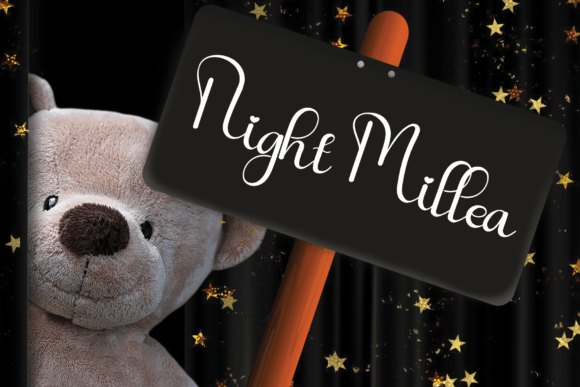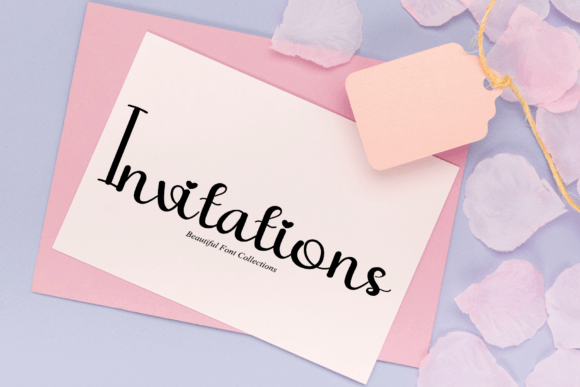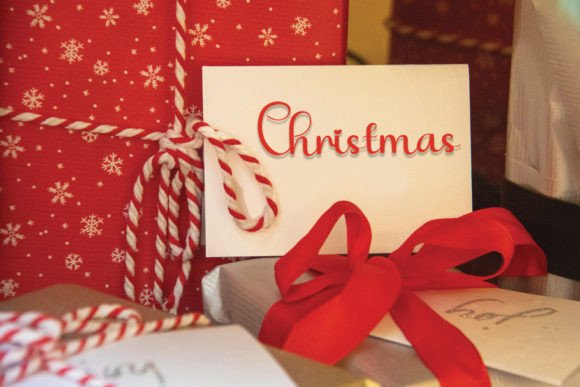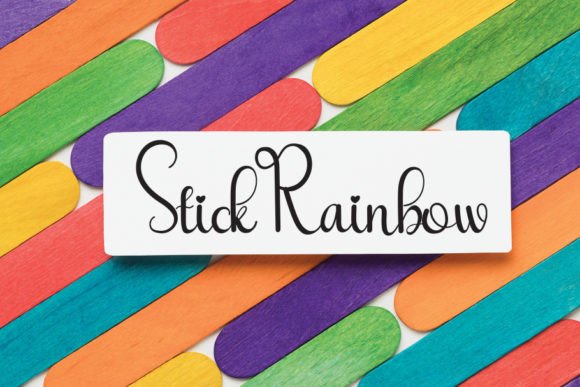
Chocolate Font
Chocolate Handwritten Font – Fun and Friendly Typeface
The Chocolate Handwritten Font is a playful and charming script typeface designed to bring joy and character to your projects. With its casual handwritten strokes and approachable look, it adds a touch of creativity to both print and digital designs. Whether you’re making greeting cards, posters, or branding materials, this font ensures your work feels warm and engaging.
A Script with Playful Personality
The Chocolate Handwritten Font blends smooth handwritten curves with a cheerful design. Its friendly style makes it ideal for casual projects, while its readability ensures usability in professional contexts. Because of this, it works beautifully across many design applications.
Perfect for Greeting Cards and Crafts
One of the best uses of the Chocolate Handwritten Font is in greeting cards and craft projects. Its fun strokes bring warmth and energy to invitations, thank-you notes, and seasonal designs. At the same time, it adapts wonderfully to posters, social media content, and packaging, where a handwritten touch adds originality.
The Chocolate Handwritten Font adapts effortlessly to a wide range of creative needs. From branding and logos to social media graphics and digital artwork, it provides a handwritten charm that feels both fun and professional. Its flexibility ensures it fits naturally in both casual and formal contexts.
Why Designers Love Chocolate Font
Designers love the Chocolate HandwrittenFont because it combines playfulness with practicality. Its unique handwritten details bring personality to projects, while its clarity ensures functionality. This combination makes it a valuable font for any creative toolkit.
In summary, the Chocolate HandwrittenFont is a fun, friendly, and versatile script typeface. With its approachable handwritten strokes, easy installation, and wide usability, it is perfect for greeting cards, crafts, logos, and posters. Don’t miss the chance to download Chocolate HandwrittenFont and give your projects a joyful handwritten touch.